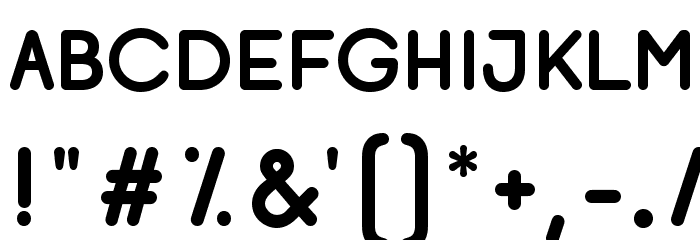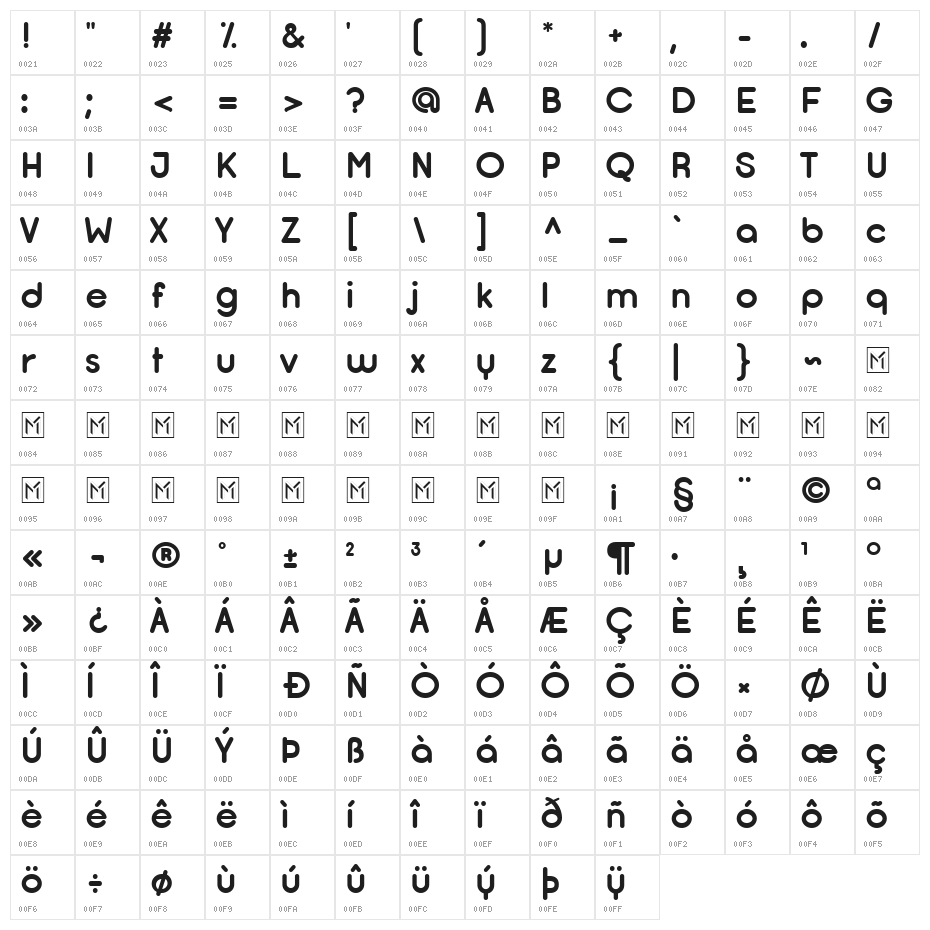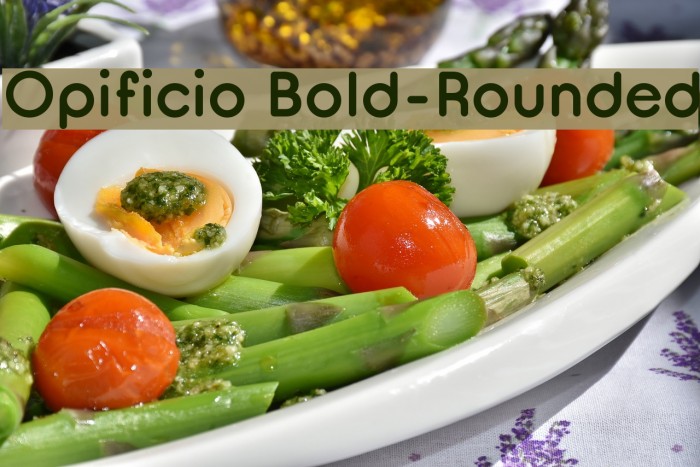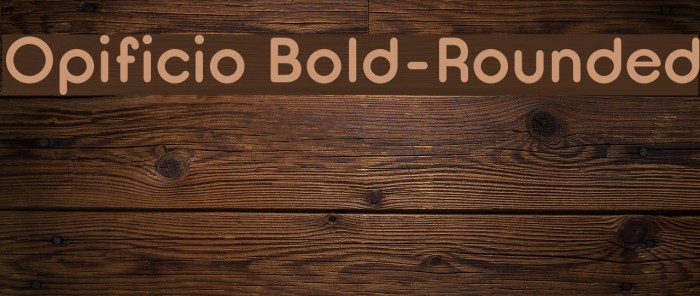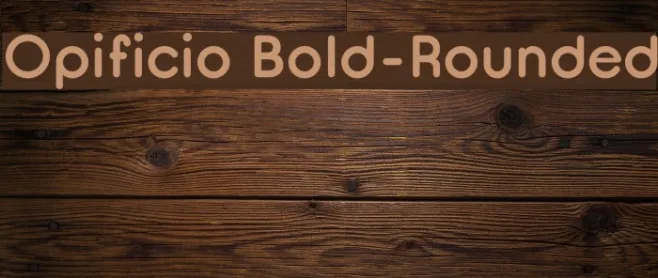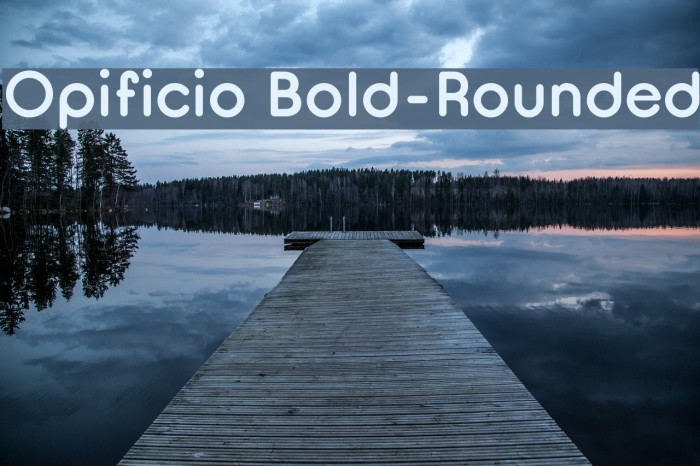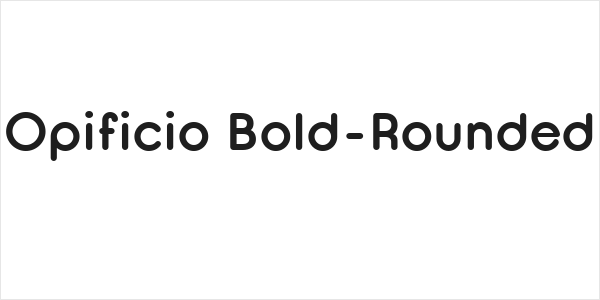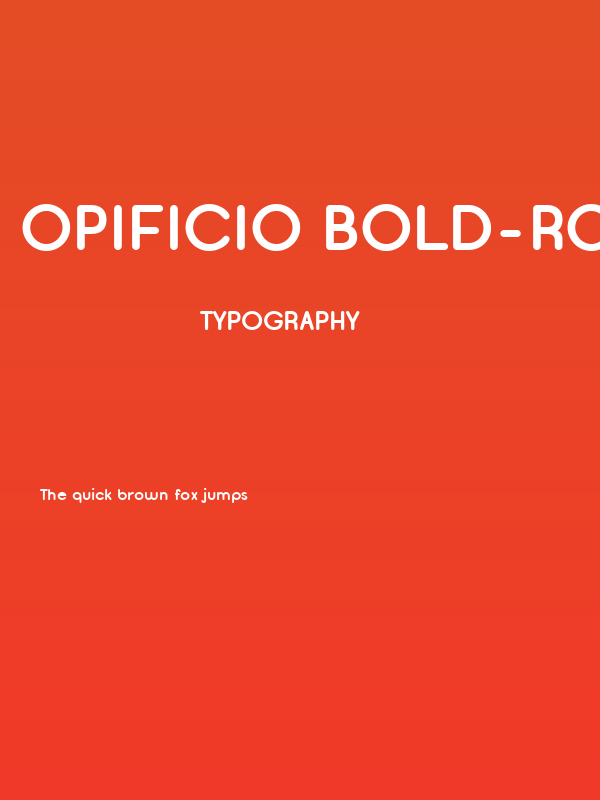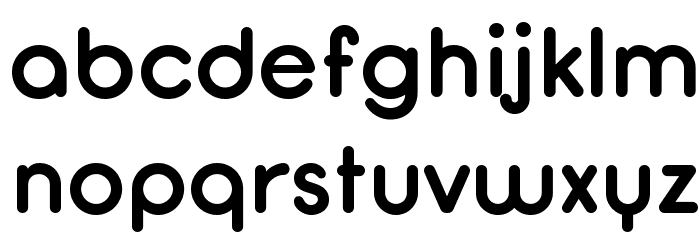
Opificio Bold-Rounded Font
Opificio Bold-Rounded Description
This font features a bold and rounded style that exudes a friendly and approachable vibe. The characters are well-balanced with smooth curves and consistent stroke widths, making it highly legible. The rounded edges soften the overall appearance, adding a modern touch to the design. It maintains a uniform weight throughout, ensuring clarity and readability across various sizes. The font's simplicity and clean lines make it versatile for a wide range of applications, from digital interfaces to print media.
| Proposed Projects | Ideal for branding, advertising, packaging, and user interface design where a friendly and modern look is desired. |